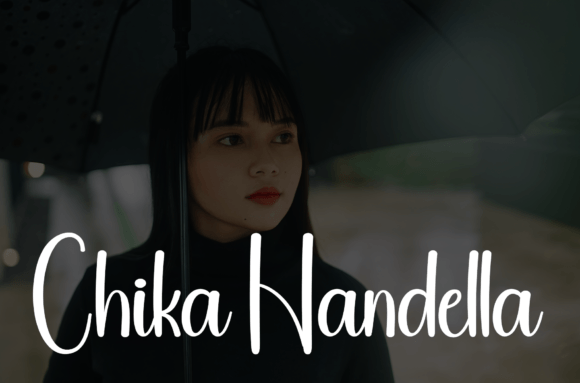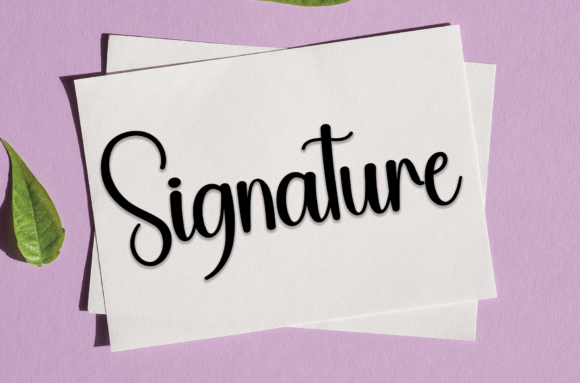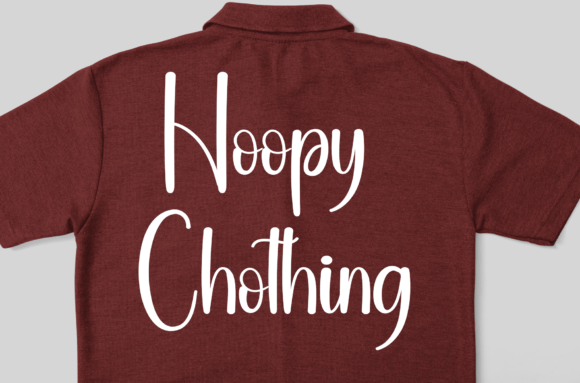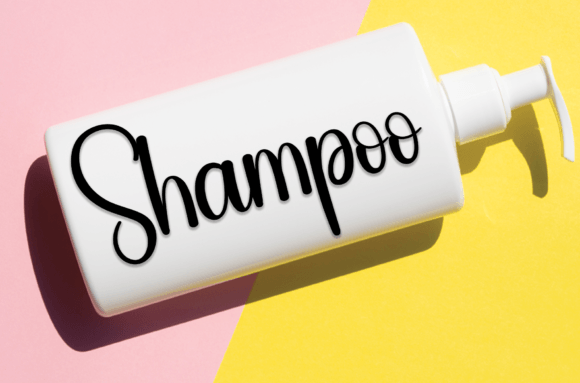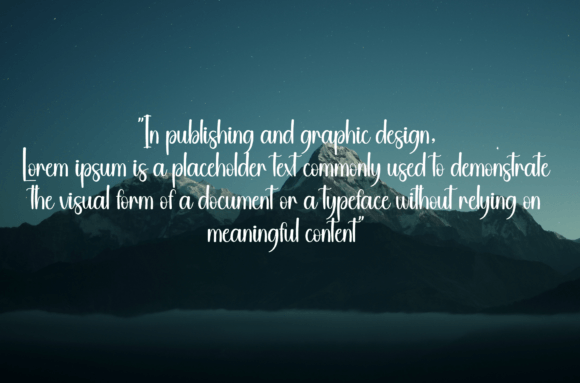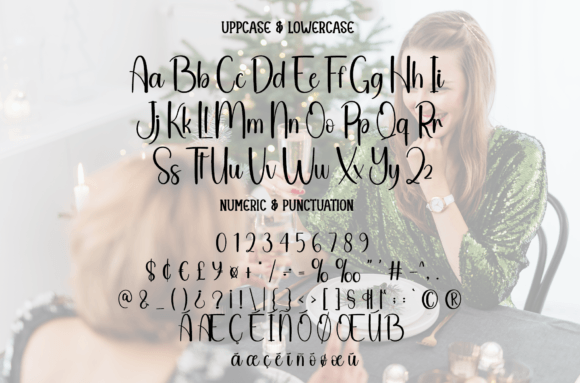
Introduction to Cheeper Font
Have you ever been working on a creative project and suddenly you need a font that captures the essence of your design? For many designers, this is a familiar experience. Whether you’re crafting a wedding invitation, a birthday card, or any other unique design, the right font can make all the difference. That’s where the Cheeper Font comes in – a sweet and friendly handwritten font that adds a touch of fun to any project.
Key Features of Cheeper Font
- High-quality design: This font boasts a clean and modern design, perfect for various creative projects requiring a professional look.
- Unique characteristics: Cheeper Font features a unique blend of modern and minimalist elements, setting it apart from other fonts in its class.
- Size: The font family includes a range of weights and styles, from Light to Bold, allowing you to choose the perfect size and style to suit your creative project.
Honest Review: Cheeper Font
- ✨ High-quality design: The Cheeper Font is well-crafted and offers a unique aesthetic that can elevate any creative project.
- ✨ Easy to use: The font’s transparent background and clean design make it effortless to incorporate into various design resources.
However, I did encounter a few limitations with the Cheeper Font:
- ⚠️ Limited character set: The font’s character set is relatively small, which may limit its use in certain design applications.
- ⚠️ Not ideal for body text: The font’s design is more suited for headings and titles rather than body text.
Overall, I think the Cheeper Font is a great addition to any designer’s toolkit. Its high-quality design and versatility make it a valuable resource for creative projects. While it may have some limitations, it’s definitely worth considering for your next design project.
Tips for Getting the Most Out of Cheeper Font
Experiment with different font sizes, colors, and styles to create unique and eye-catching designs. Use Cheeper Font in combination with other design resources to add depth and visual interest to your creative project.
Cheeper Font is ideal for use in branding, marketing materials, and social media graphics. It’s also great for creating titles, headings, and body text in your design projects.